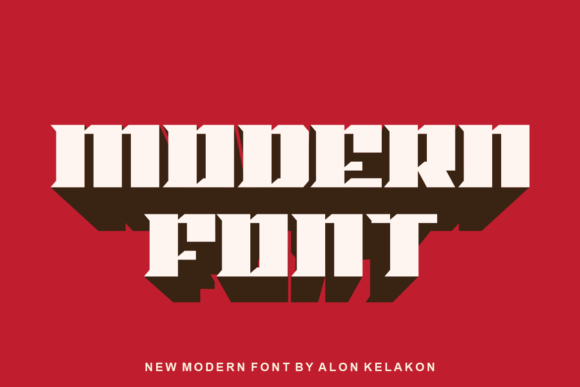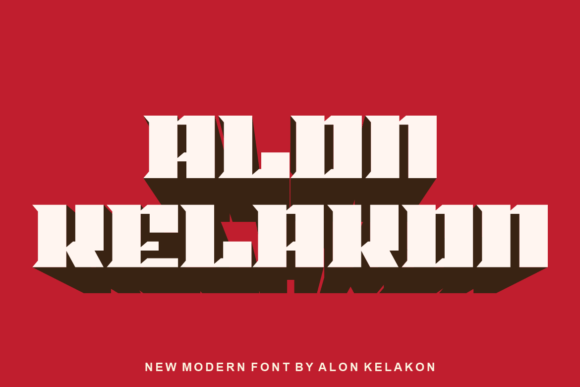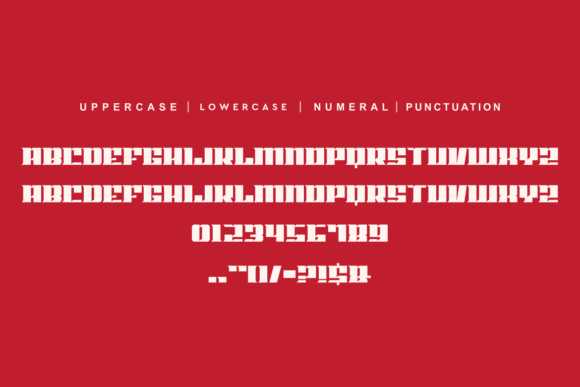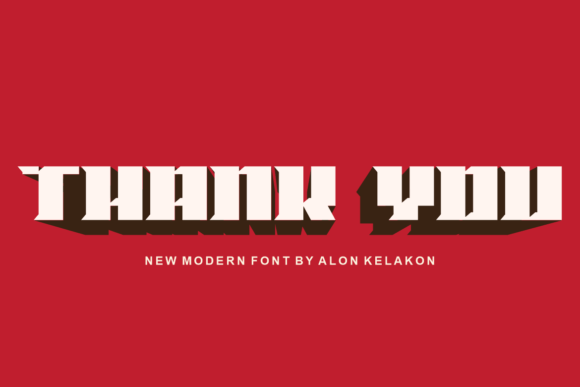
Rosegor Font
ROSEGOR FONT SPECIMEN
Rosegor is a unique slab serif font, ready to use for your design like labeling, clothing, movie scenes, poster, movie title, gigs, album covers, logos, and much more.